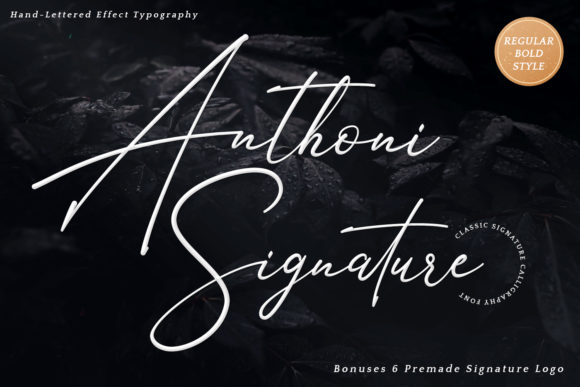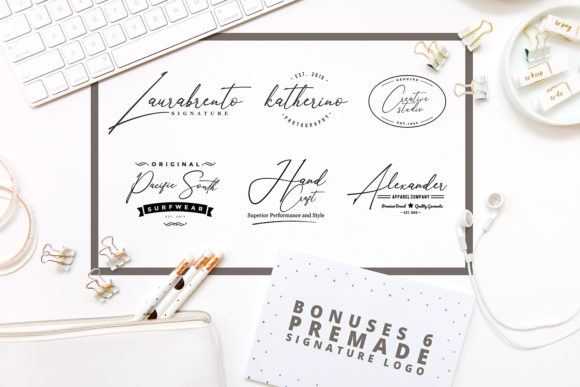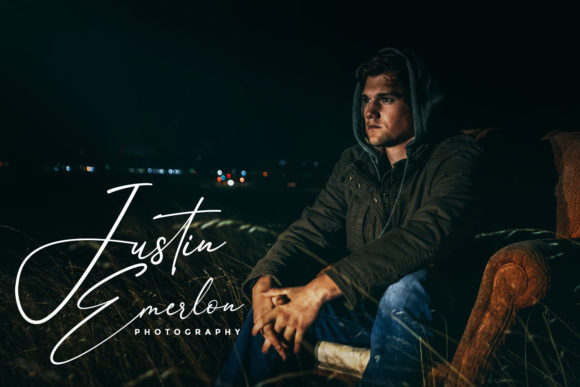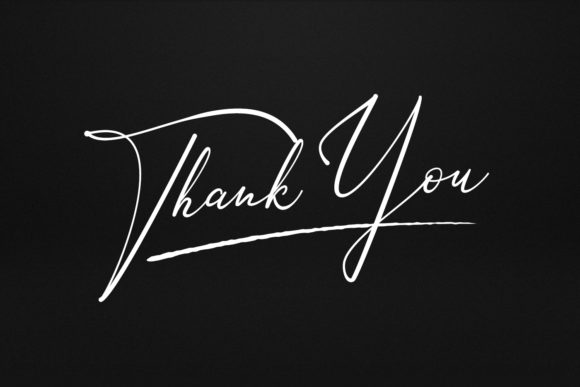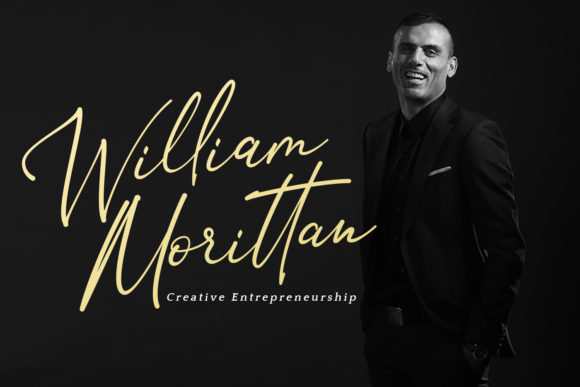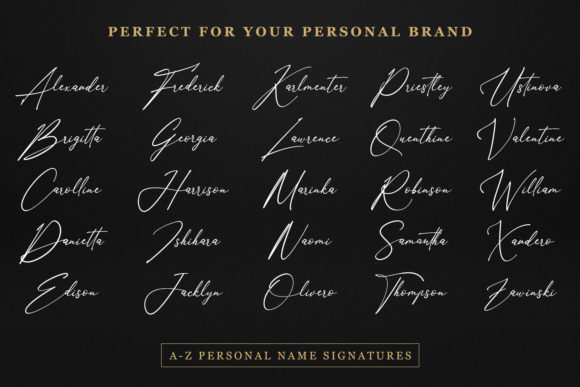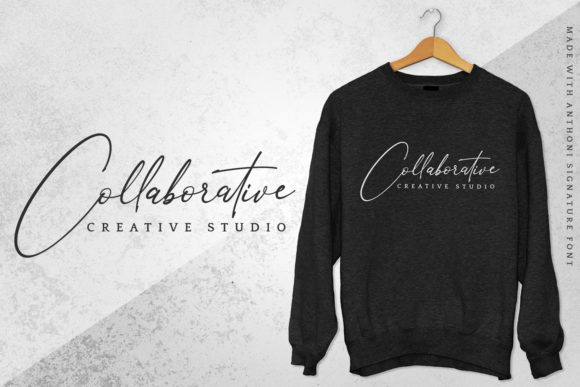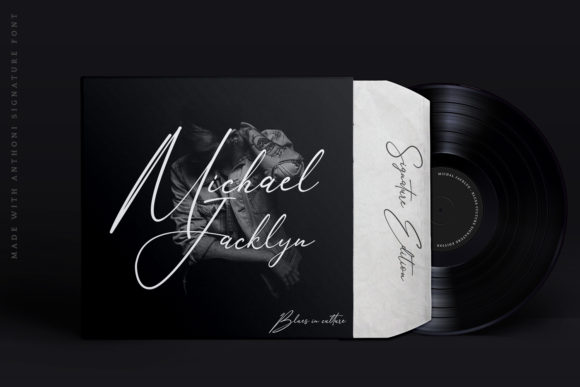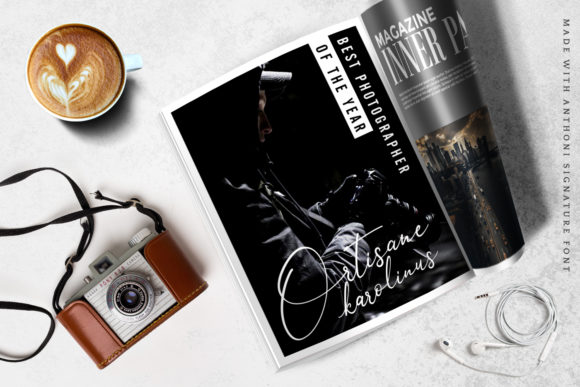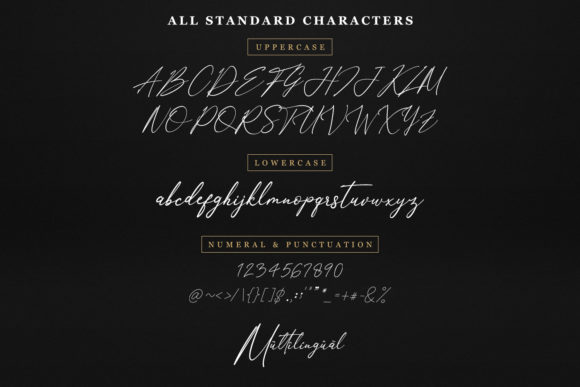
Anthoni Signature Font
Anthoni Signature is a handwritten signature script with a natural & stylish flow. It will add an authentic touch to any design idea.